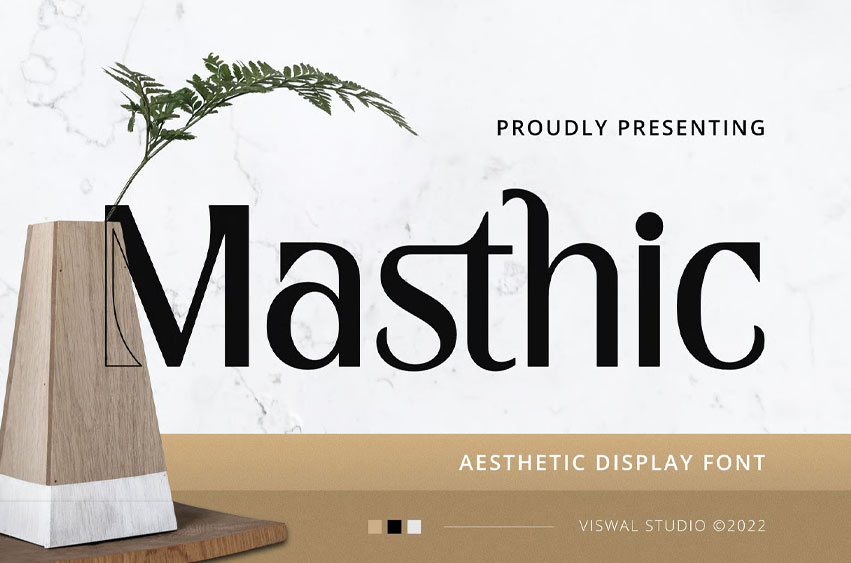
Masthic Font Modern Font is suitable for Logo, Magazine, advertising, branding etc. Our fonts have Uppercase & Lowercase, Numeral & Punctuation, Multilingual support and Opentype Features.
For Amazing designs you can mix with other fonts as a complement.